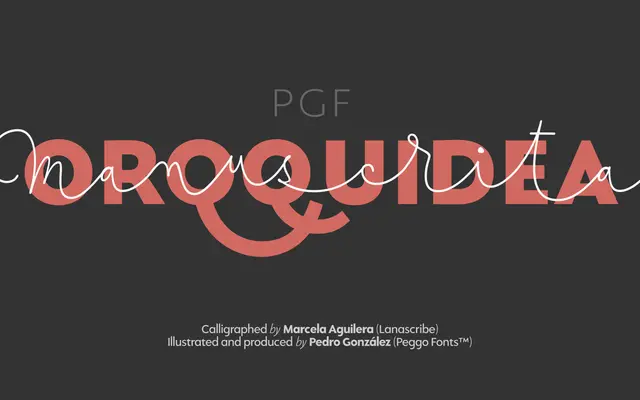
PGF-Orqquidea
Peggo Fonts · Marcela Aguilera, Pedro González
A calligraphic family built from handmade lettering by Chilean calligrapher Marcela Aguilera, extended into a sans, decorative and ornament subfamilies by Pedro González.
Orqquidea spans 12 variants across four distinct subfamilies: a five-weight geometric sans, a five-weight calligraphic Manuscrita ranging from Hair to Contrast, and two decorative additions in Garden and Deco. The Manuscrita subfamily draws directly from Aguilera's physical calligraphy work, while González's type design extends that into a full system suited to packaging, labels, branding and editorial layouts. OpenType features include standard and discretionary ligatures, stylistic alternates, oldstyle figures and fractions.
The Manuscrita subfamily is rooted in handmade calligraphy by Marcela Aguilera, making it a calligraphic script; the broader family also includes a geometric sans and decorative/ornament variants, but the defining voice of the family is its handwritten script character.